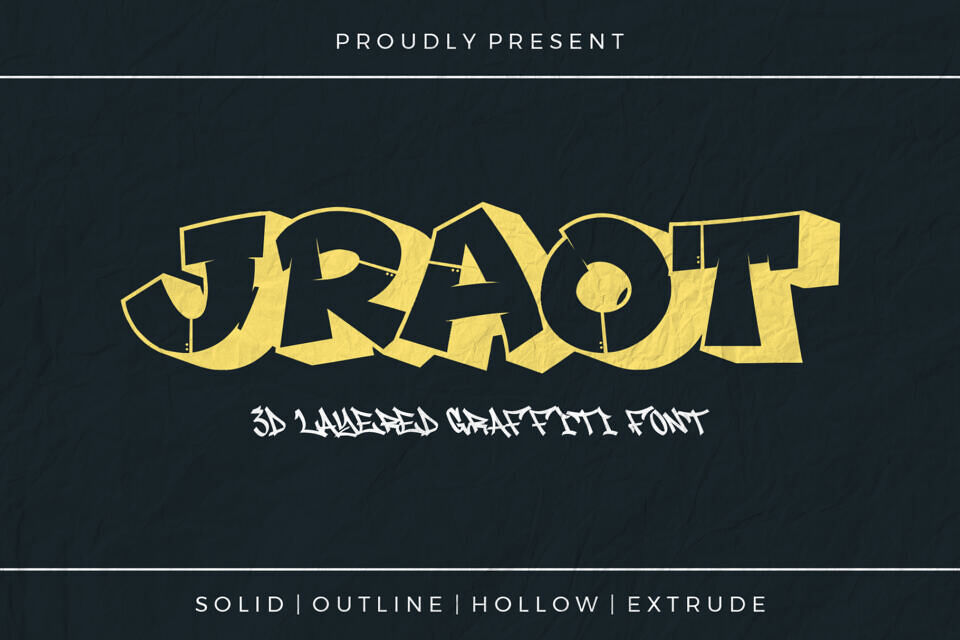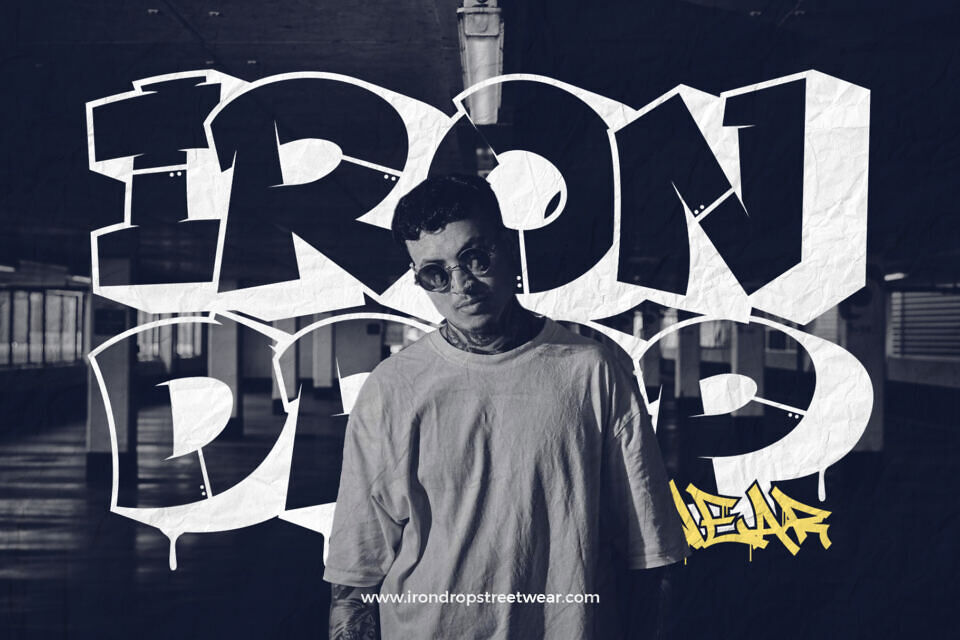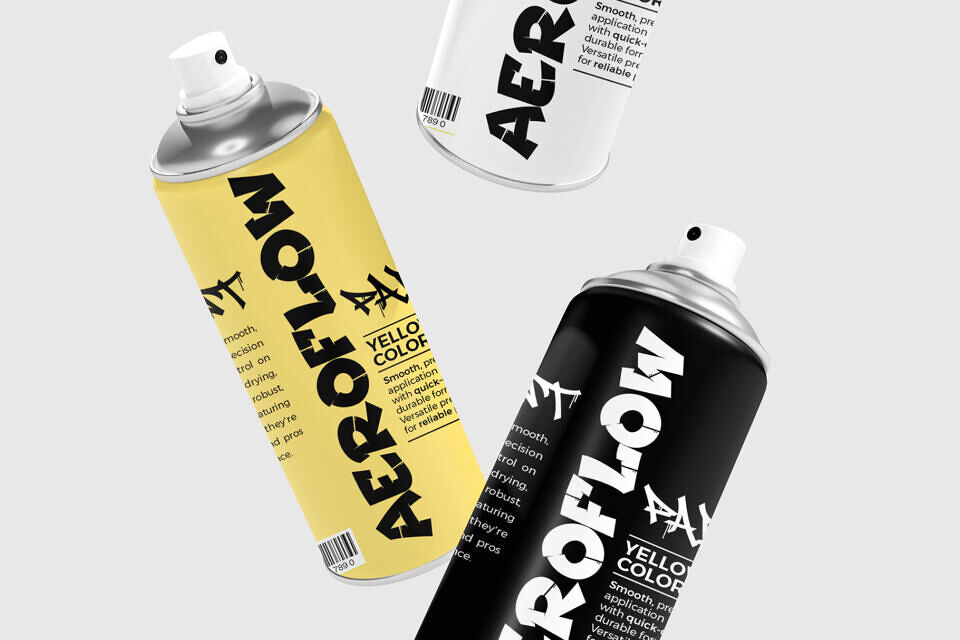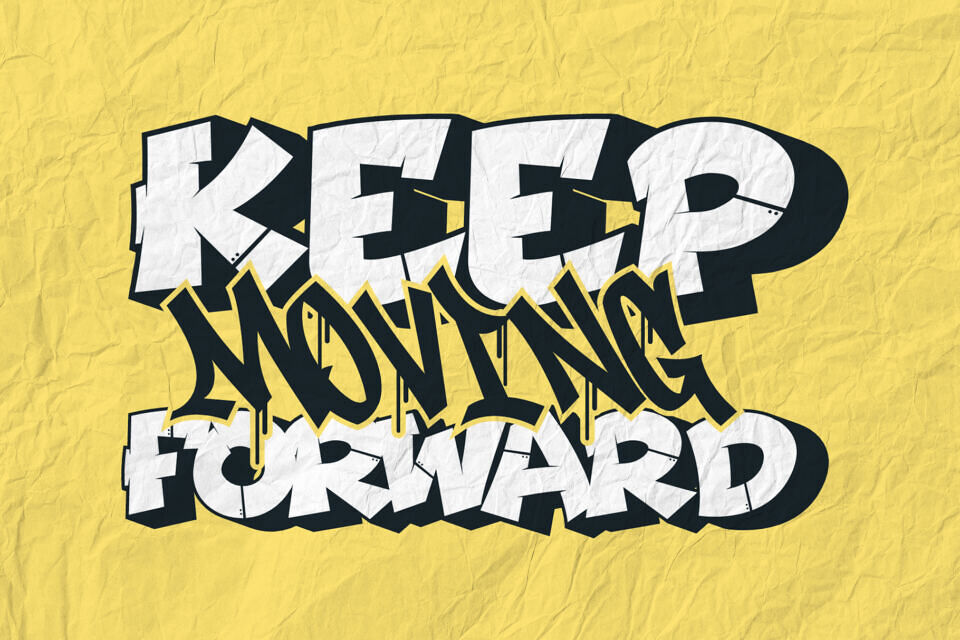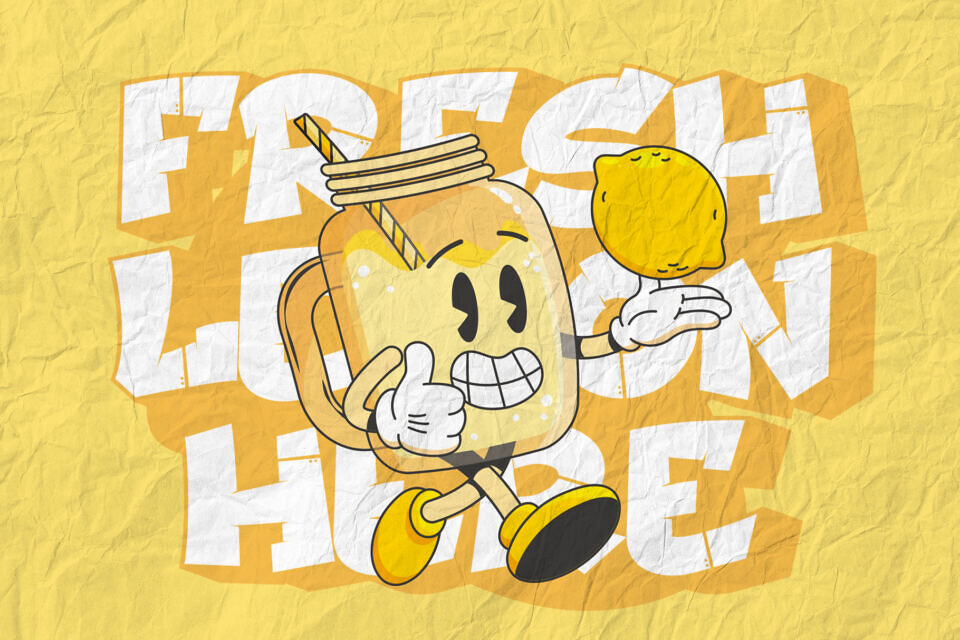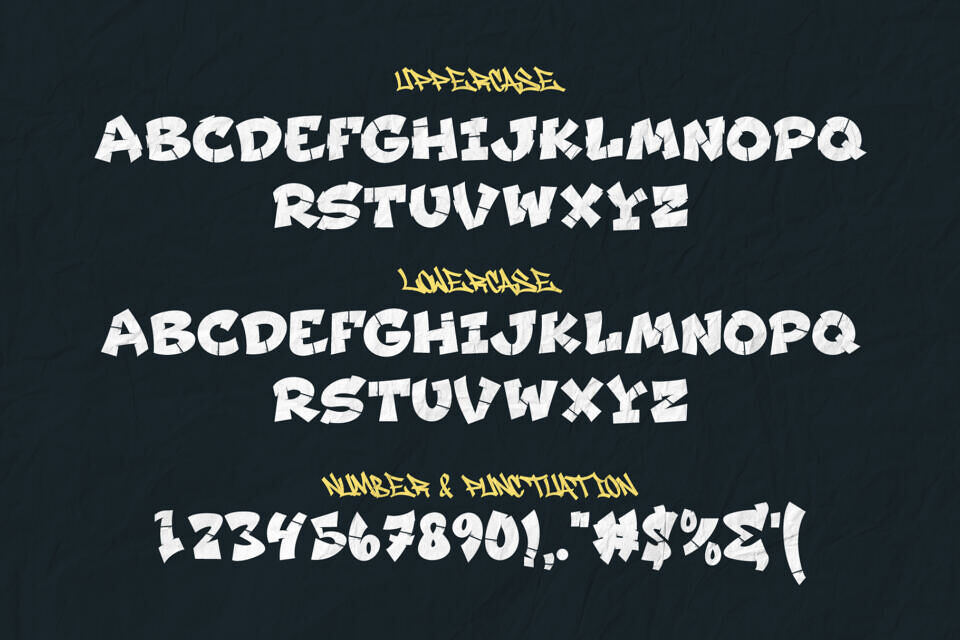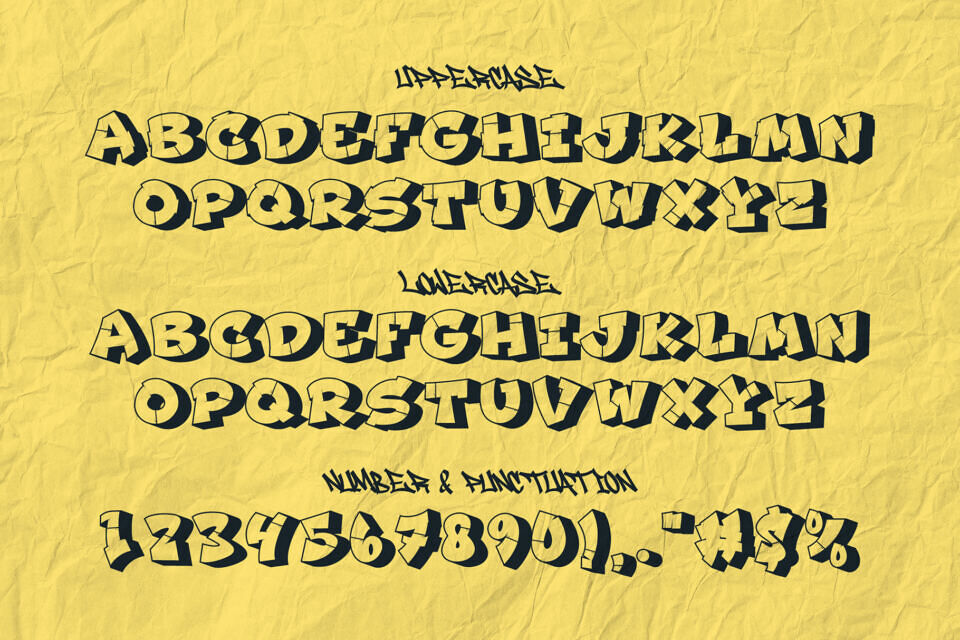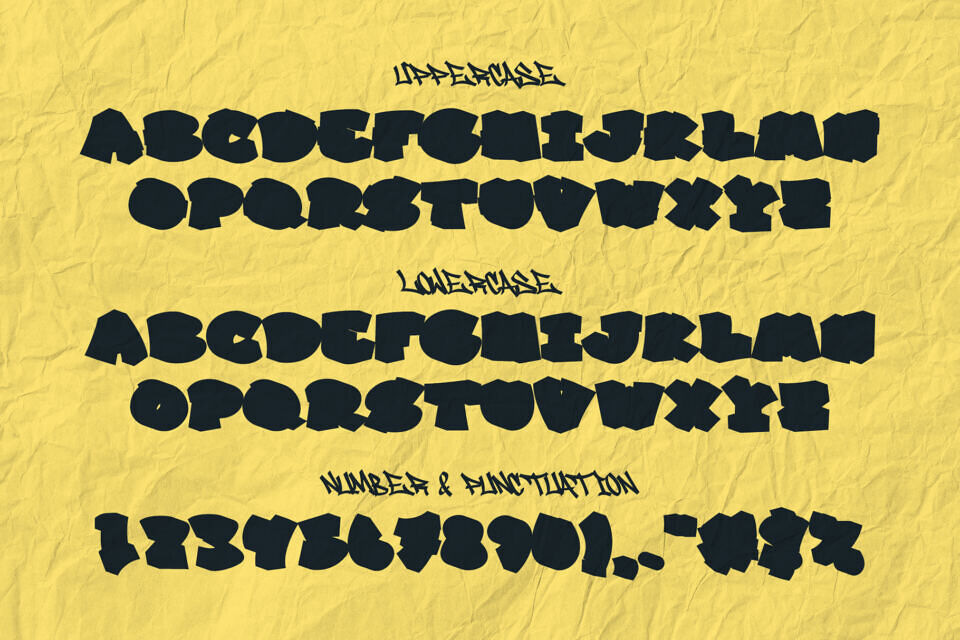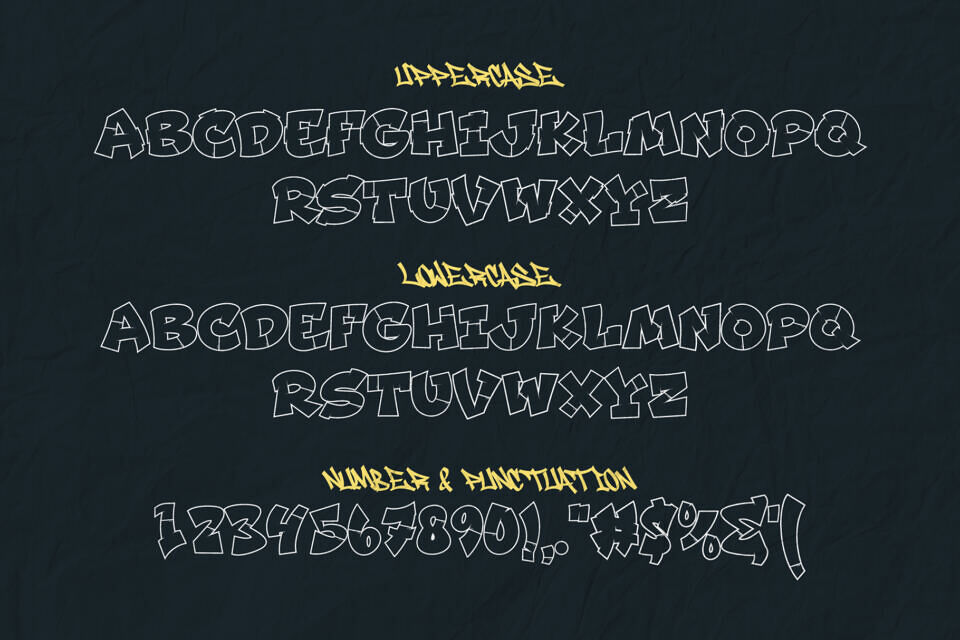
Jraot is a bold and expressive 3D decorative graffiti font designed to inject powerful street culture energy into your design arsenal. With both uppercase and lowercase characters, Jraot offers versatility while staying true to its graffiti roots. This font isn’t just about bold letters—it’s about dimensional storytelling. Featuring four stylistic variations, Jraot gives designers a complete typographic system to create depth, layering, and movement.
Whether you’re crafting designs for urban clothing brands, music events, extreme sports, or digital art, Jraot delivers uncompromising personality and visual power.
Four Distinctive Styles in One Font Family To give creators full creative control, Jraot comes in a robust 4-style pack:
- Jraot Regular (OTF, TTF, WOFF) – The base version, ideal for standalone use or as a foundation
- Jraot Hollow (OTF, TTF, WOFF) – A skeletal, airy style with negative space for punchy headlines
- Jraot Outline (OTF, TTF, WOFF) – A clean vector-style version great for overlays and stroke-based artwork
- Jraot Extrude (OTF, TTF, WOFF) – A 3D layered version that adds depth and realism to your designs